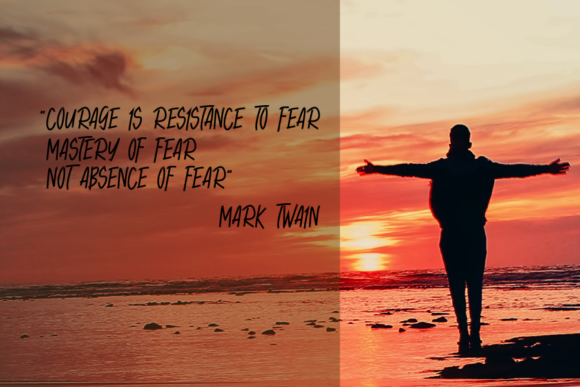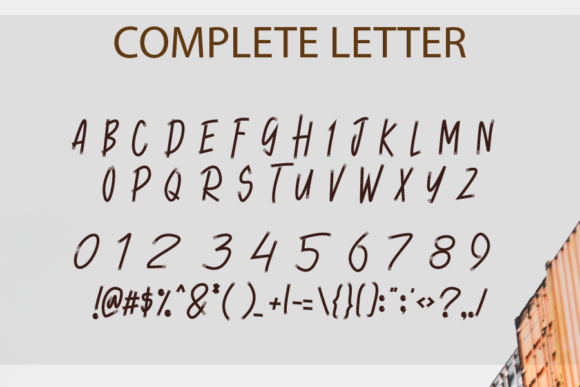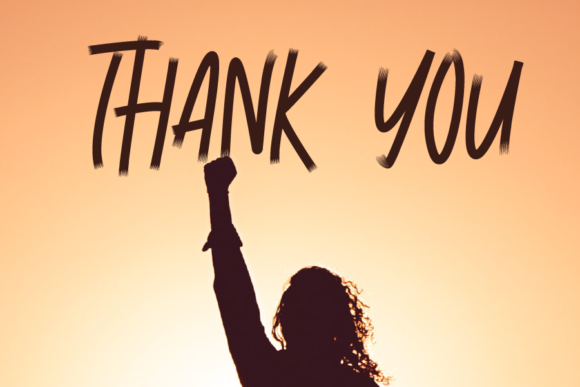
Introduction to Punch Line Font
Remember the moment when you see a design come together, and it’s like magic? The perfect combination of colors, shapes, and typography can make any creative project truly unforgettable. For designers, this moment is a reminder of the power of a well-chosen font.
That’s where Punch Line Font comes in – a simple yet unique display font designed to elevate your designs to the next level. With its high-quality design and transparent background, this font is a valuable resource for any designer looking to add a touch of sophistication to their work.
Key Features of Punch Line Font
- High-quality design resource for creative projects, ideal for graphic designers and artists.
- Features a transparent background, making it easy to use in various design applications.
- Unique and creative design, perfect for adding a touch of personality to any project.
Honest Review: Punch Line Font
I recently came across the Punch Line Font and was excited to give it a try. As a designer, I’m always on the lookout for high-quality design resources that can elevate my creative projects. This font definitely fits the bill.
- ✨ One of the standout features of the Punch Line Font is its versatility. It’s perfect for a wide range of creative projects, from logos to graphics to text-based designs.
- ✨ The design itself is sleek and modern, with a clean aesthetic that works well in both digital and print designs.
While the Punch Line Font is a solid addition to any design library, there are a few limitations to be aware of.
- ⚠️ The font may not be suitable for extremely small text sizes, as the characters can become difficult to read.
- ⚠️ Some users may find the font’s design a bit too minimalist, which can limit its appeal in certain creative projects.
Overall, I’m impressed with the Punch Line Font and would definitely recommend it to fellow designers. Its high quality, versatility, and free download make it a valuable resource for any creative project. Just be aware of the potential limitations, and you’ll be all set to take your designs to the next level.
Tips for Getting the Most Out of Punch Line Font
Experiment with different font sizes and colors to create a visually appealing design. Use the font in combination with other design elements, such as images or graphics, to add depth and interest to your design.
Punch Line Font is perfect for creating social media graphics, presentation titles, or marketing materials. It’s also ideal for designers who need a high-quality font for their creative projects.